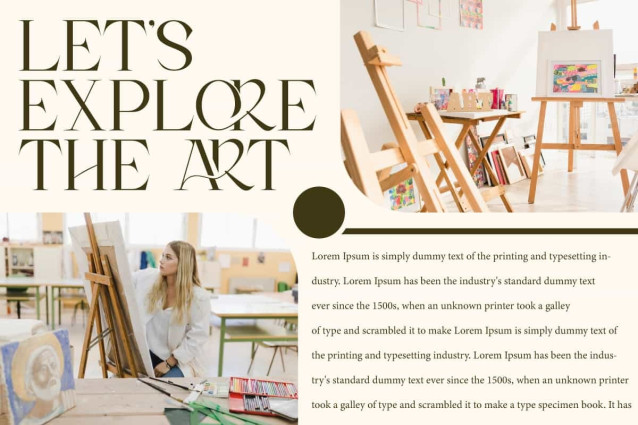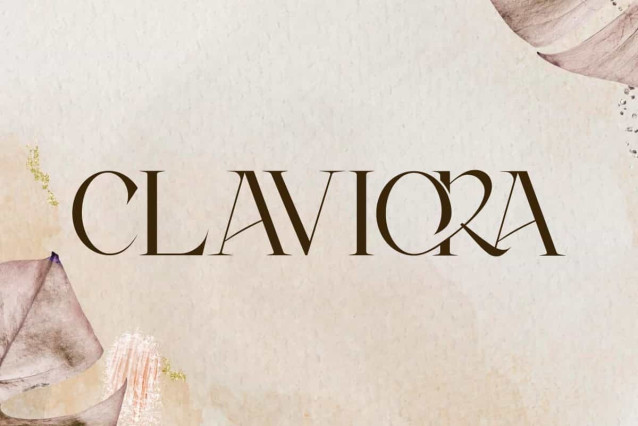
Claviora Font
Claviora Font is a display serif font that exudes an elegant and exclusive impression to your designs. This font will be perfect for various projects, such as advertisement, blog, invitation. stationery, brand image, brochure, quotes, template design purpose, website, and more.
Claviora Font includes a complete set of Uppercase and Lowercase Basic Characters, Numbers, Punctuation, Symbols, and Ligature character. This font combines classic and contemporary elements that exudes elegance and prestige. Making it a perfect choice for a variety of fields, such as accessories and jewelry, beauty product, event or wedding organizer, fashion, florist, furniture, real estate, spa and salon, etc.